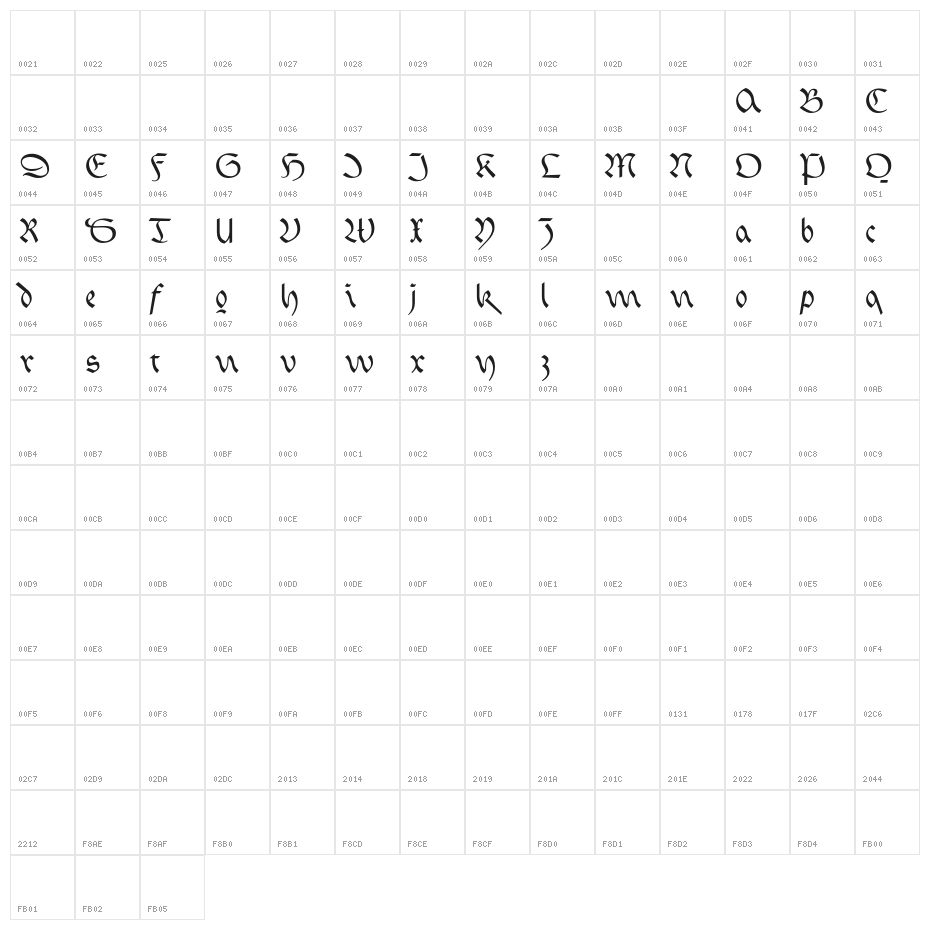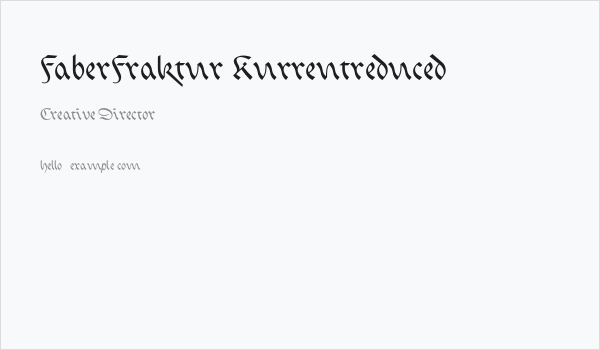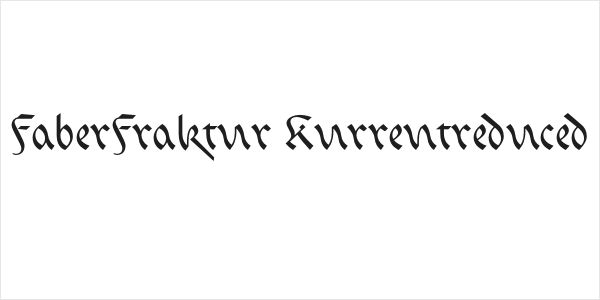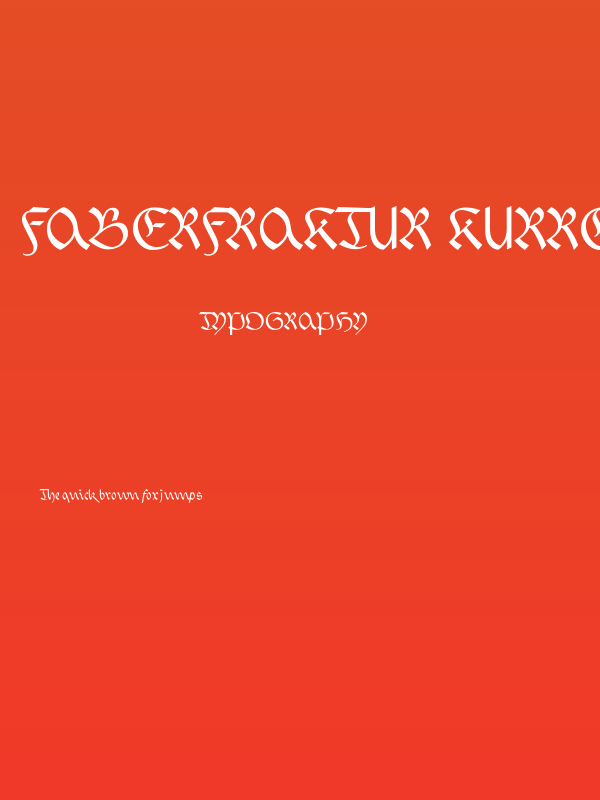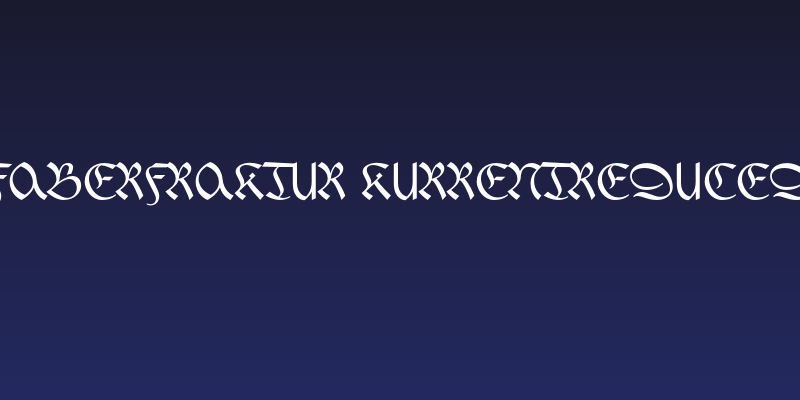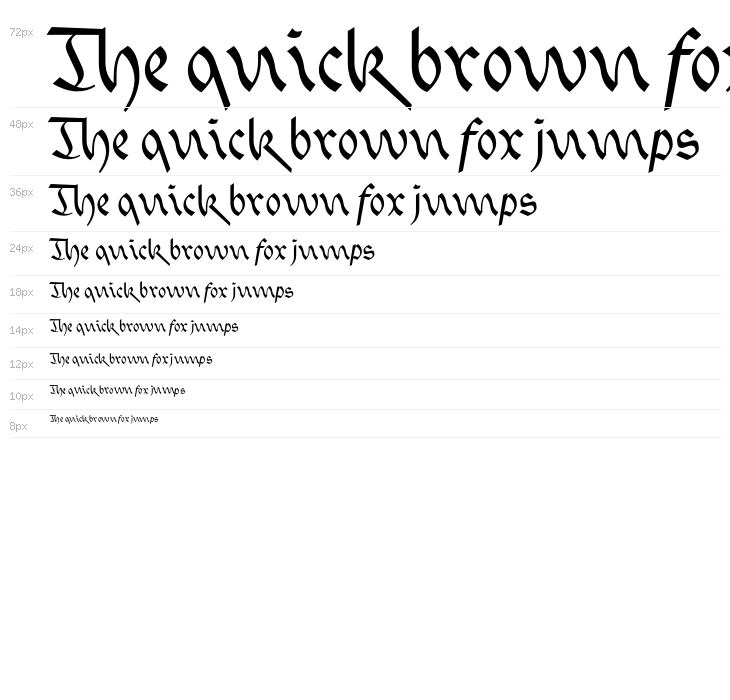
FaberFraktur-Kurrentreduced Font
FaberFraktur-Kurrentreduced Description
This font features a classic blackletter style with intricate, angular strokes and a distinct medieval appearance. The uppercase letters exhibit a strong, bold presence with sharp edges and elaborate curves, while the lowercase letters maintain a consistent flow with a slightly more delicate touch. The overall design is reminiscent of traditional calligraphy, offering a sense of historical elegance and sophistication. The characters are tightly spaced, enhancing the compact and cohesive look of the text. This font is ideal for projects that require a touch of vintage charm and a nod to historical typography.
| Use Case | Headlines, Logos, Decorative text |
| Proposed Projects | Ideal for historical documents, invitations, certificates, and branding that requires a vintage or medieval touch. |